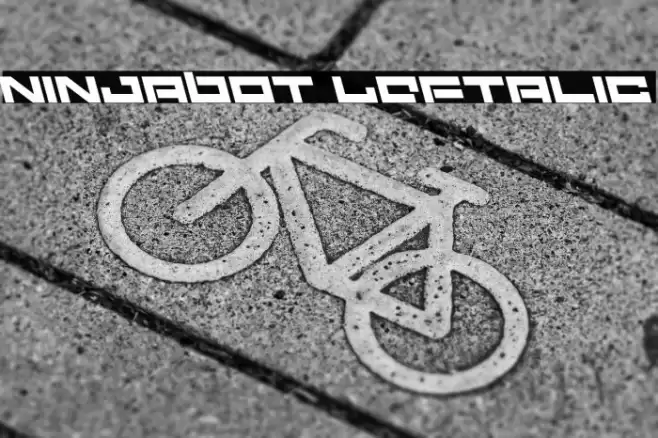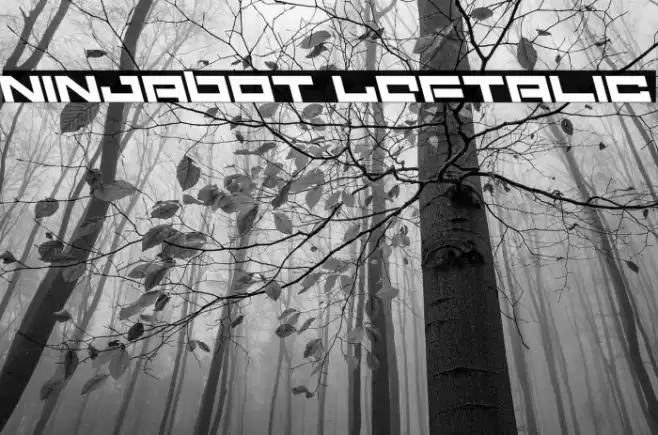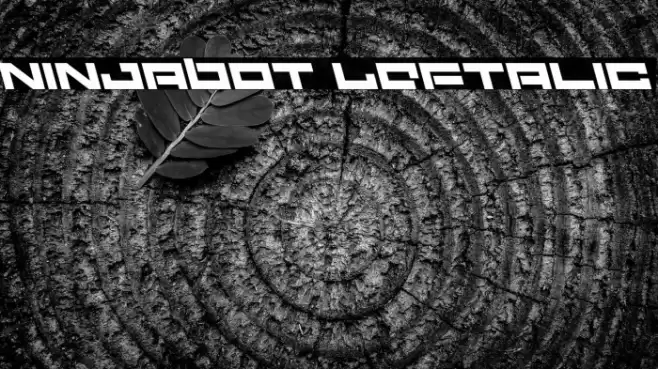
Ninjabot Leftalic Font
Ninjabot Leftalic Description
This font features a futuristic and angular design, characterized by sharp edges and a bold presence. The letters are slanted, giving a dynamic and forward-moving appearance. The geometric shapes create a sense of speed and modernity, making it ideal for tech-oriented projects. The uppercase and lowercase letters maintain a consistent style, with the numbers and special characters following the same angular theme. The overall look is bold and striking, suitable for making a strong visual impact.
A bold, angular font with a futuristic and dynamic style from Uncategorized fonts.
- Proposed Projects: Ideal for tech branding, video game titles, sci-fi posters, and modern digital interfaces.
- Contrast: High
- Overall Style: Futuristic